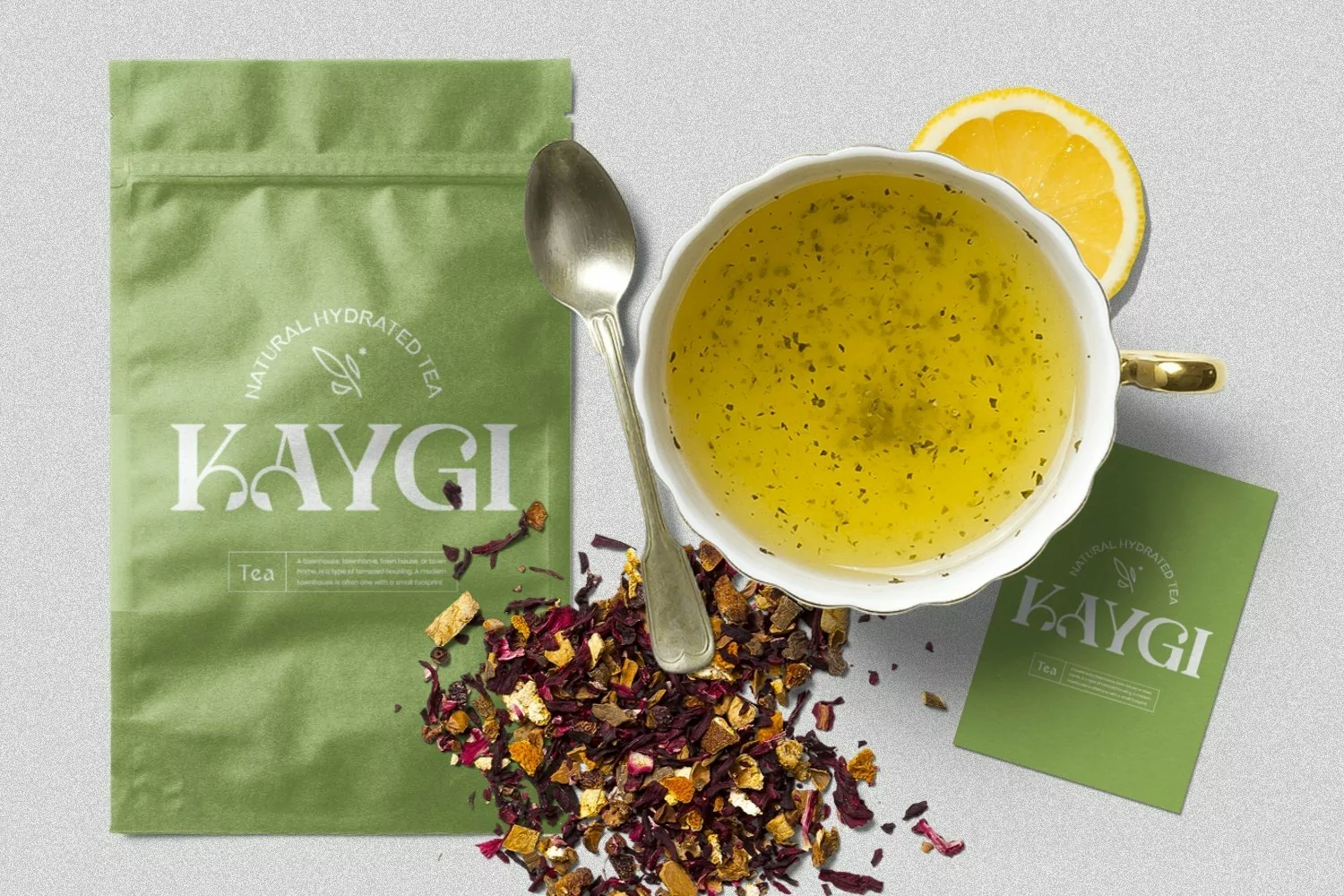
Web Font suitable for logotype, brand, packaging, quotes, music poster, t-shirt, cover book and more custom design. The features uppercase, lowercase, numeral, punctuation & symbol, multilingual support.
OesmanRegular